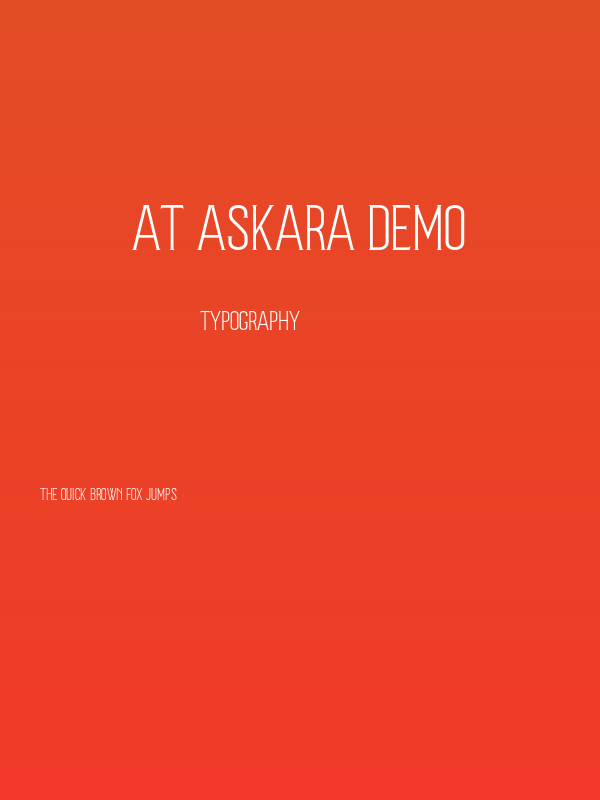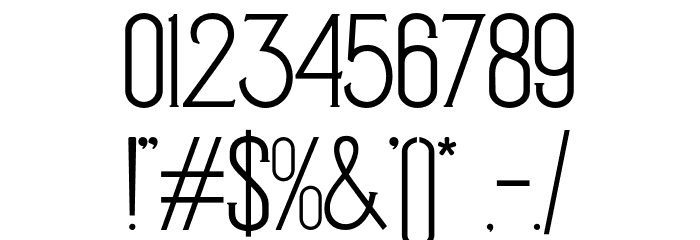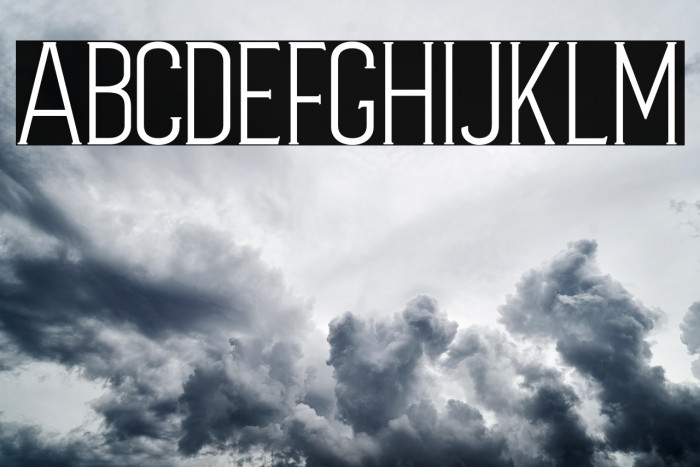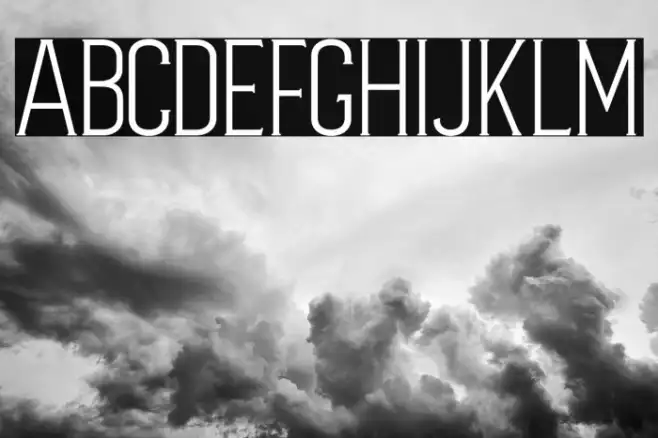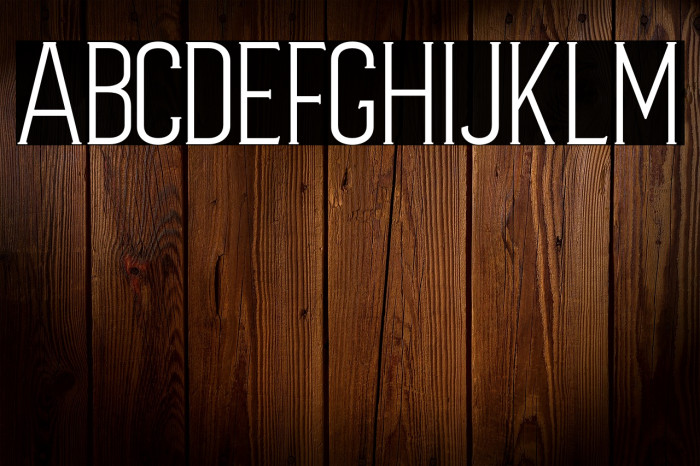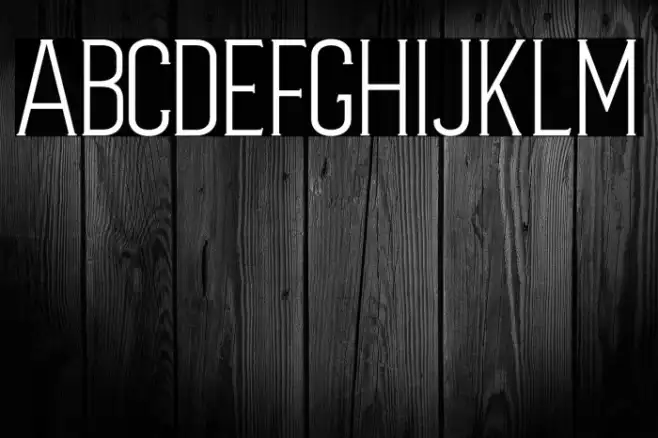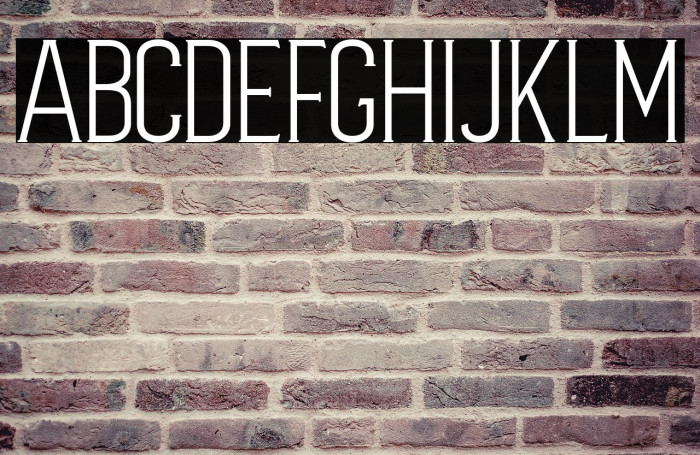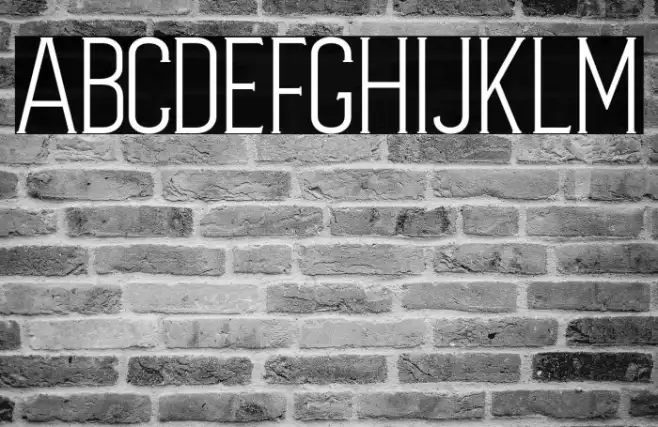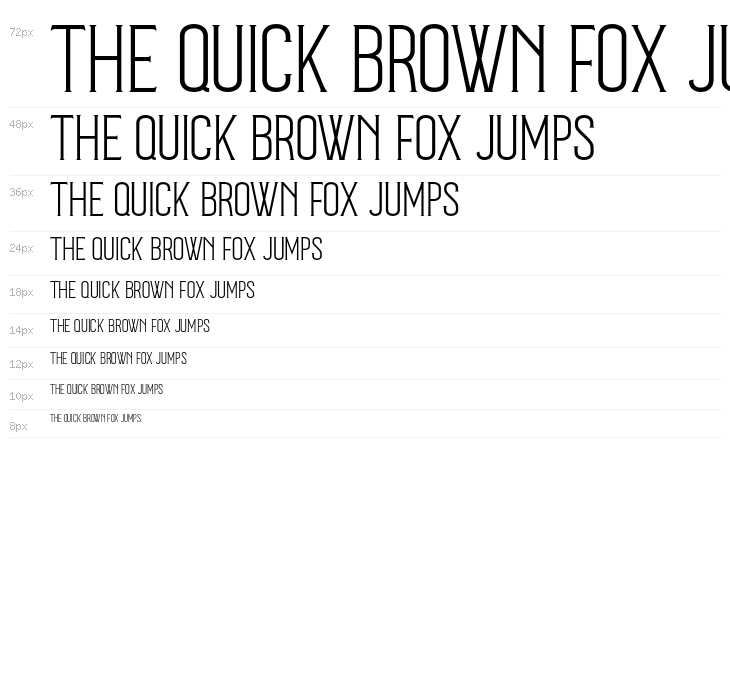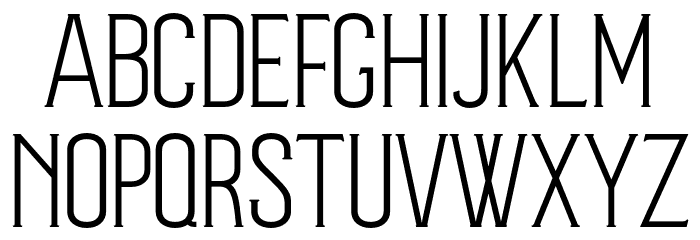
AT Askara Demo Font
AT Askara Demo Description
This font features a modern and sleek design with tall, narrow characters that convey a sense of elegance and sophistication. The uppercase letters are particularly elongated, giving them a distinctive and stylish appearance. The lowercase letters maintain a consistent height, complementing the uppercase set. The numerals are clear and easy to read, with a uniform width that matches the overall aesthetic. Special characters are well-integrated, maintaining the font's clean and contemporary look. The thin strokes and minimal contrast between thick and thin lines contribute to its refined and polished feel.
| Proposed Projects | Ideal for fashion magazines, luxury branding, modern websites, and editorial designs. |